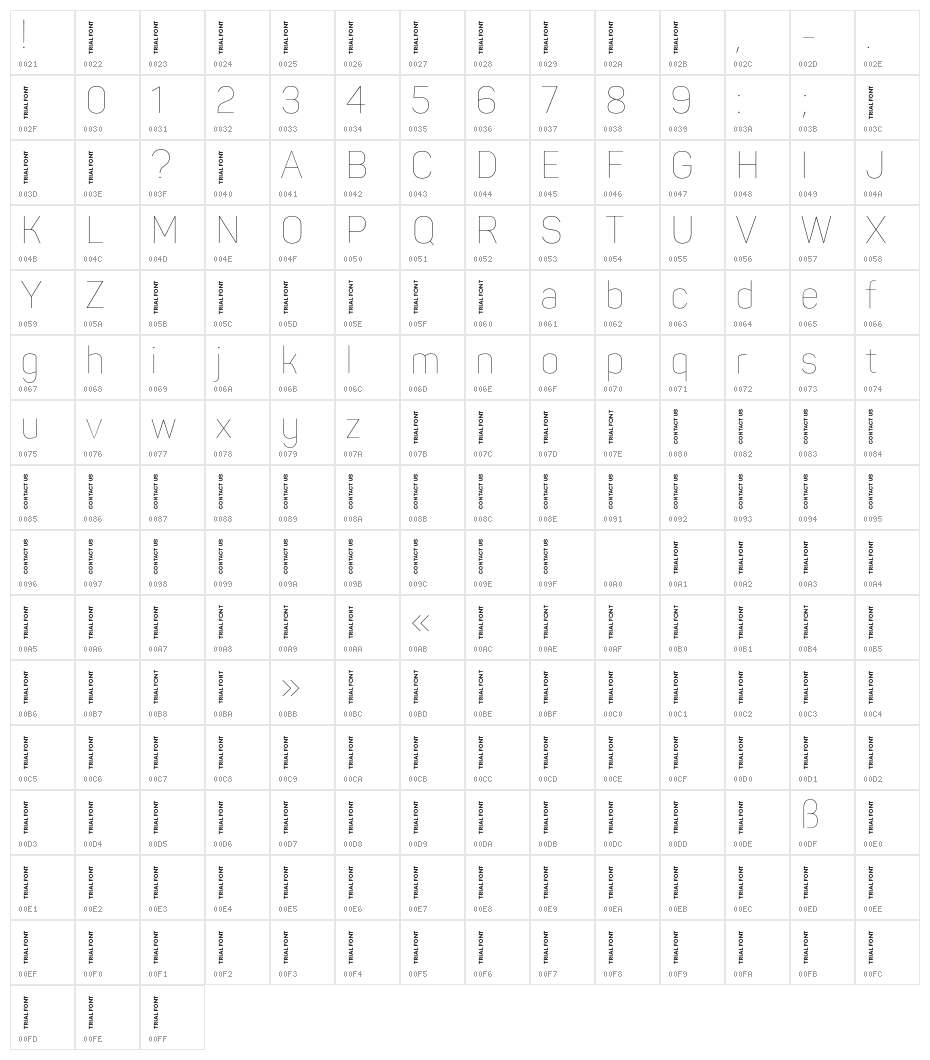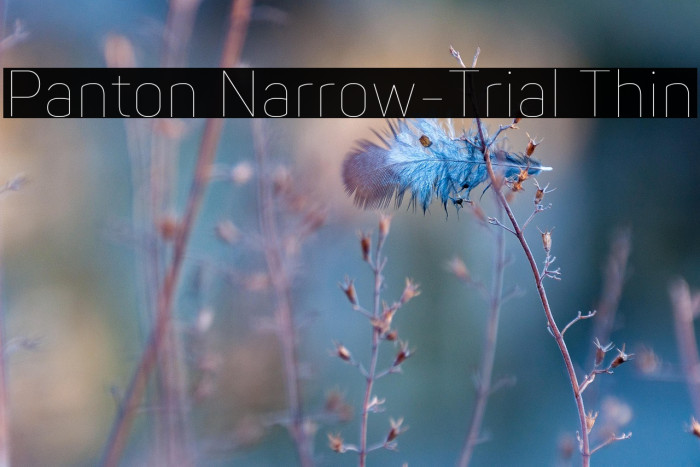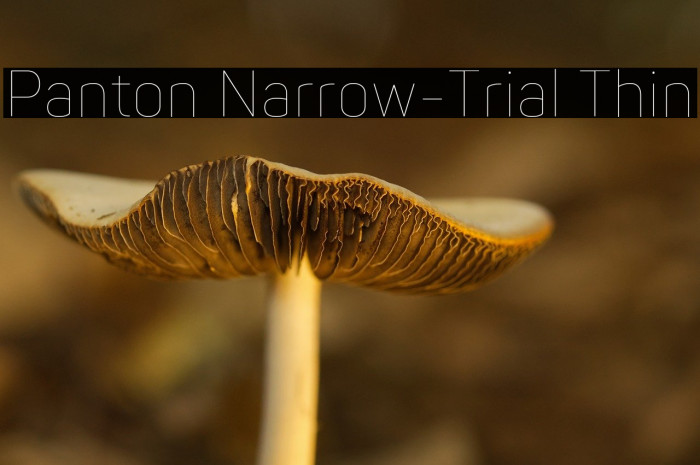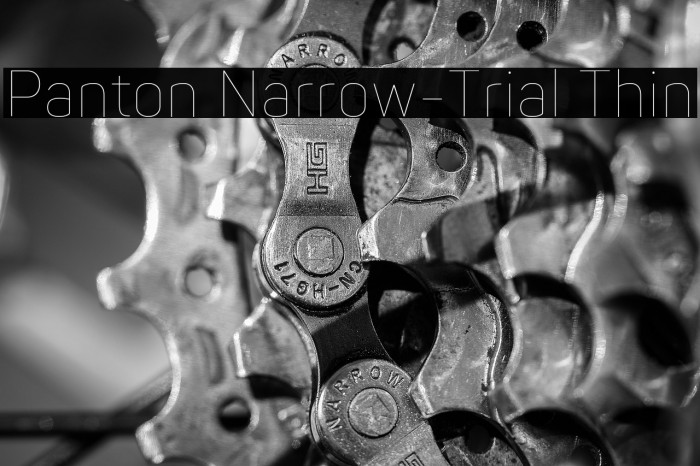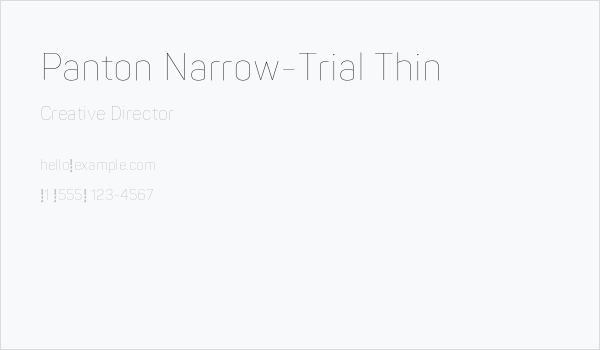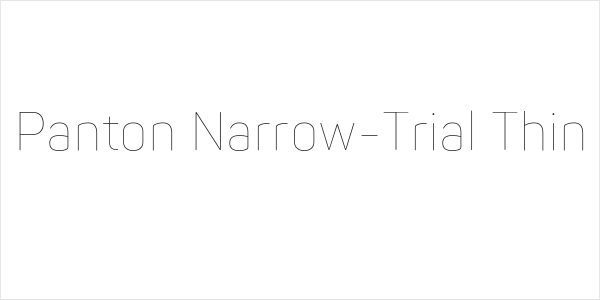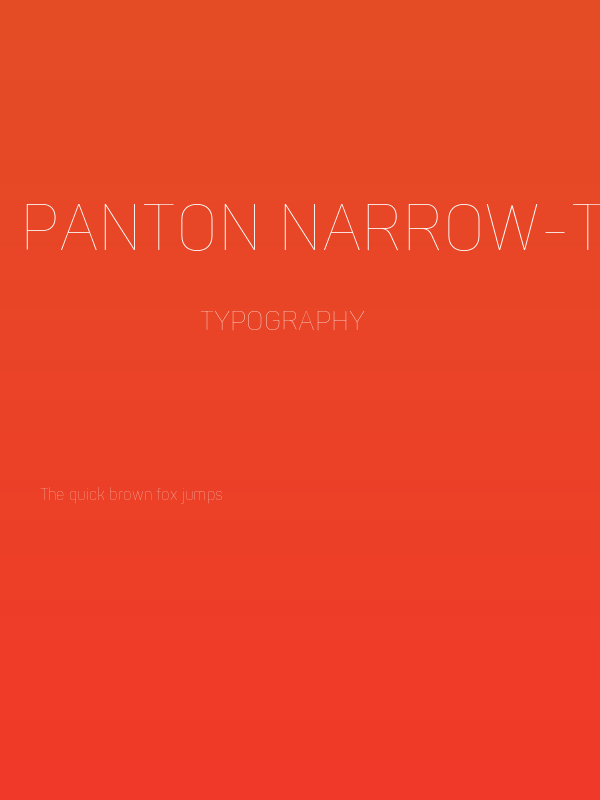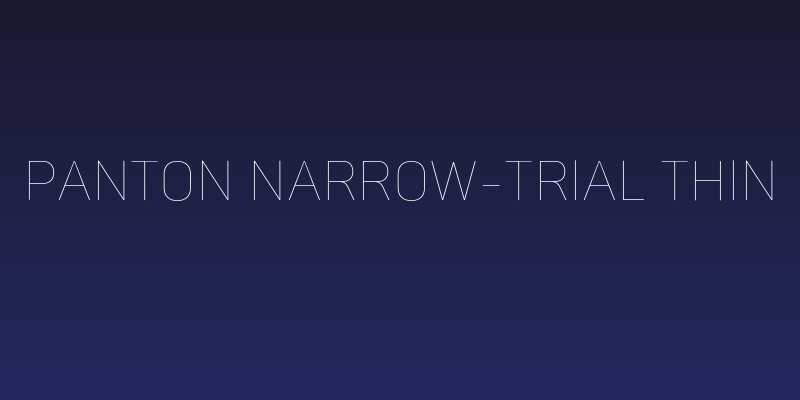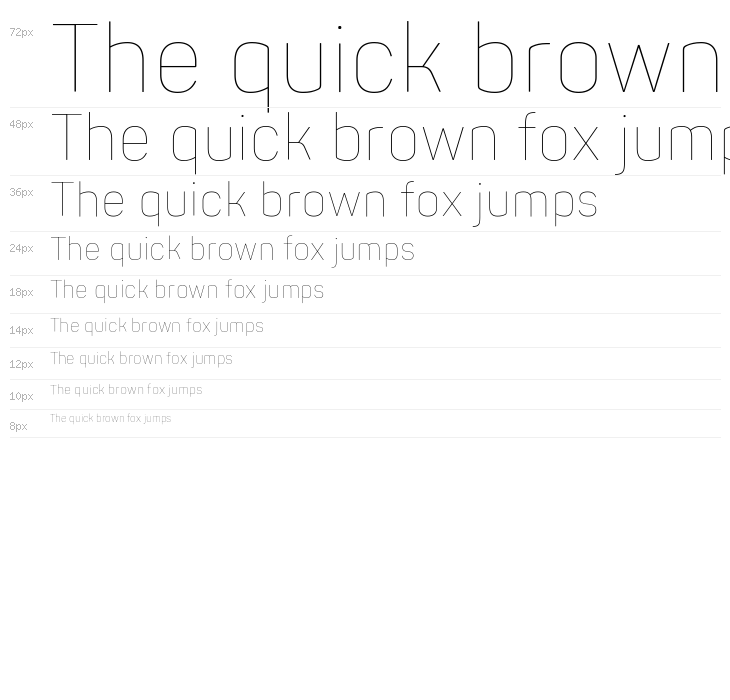
Panton Narrow-Trial Thin Font
Panton Narrow-Trial Thin Description
This font features a sleek and modern design with a narrow and thin appearance. The characters are cleanly crafted, with a geometric influence that gives them a contemporary feel. The uppercase and lowercase letters maintain a consistent height, contributing to a uniform look. The numerals are straightforward and align well with the overall style. Special characters are included, maintaining the same thin and precise line work. This font is ideal for projects that require a minimalist and elegant touch.
Proposed ProjectsIdeal for branding, editorial design, minimalist posters, and digital interfaces.